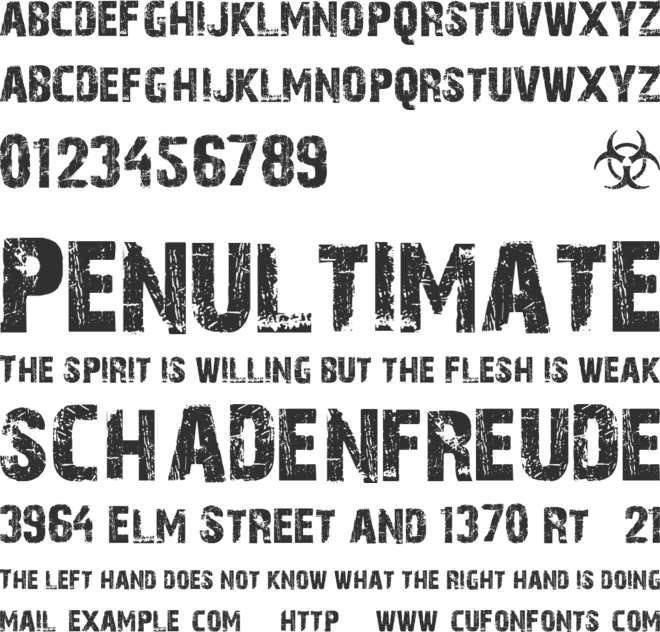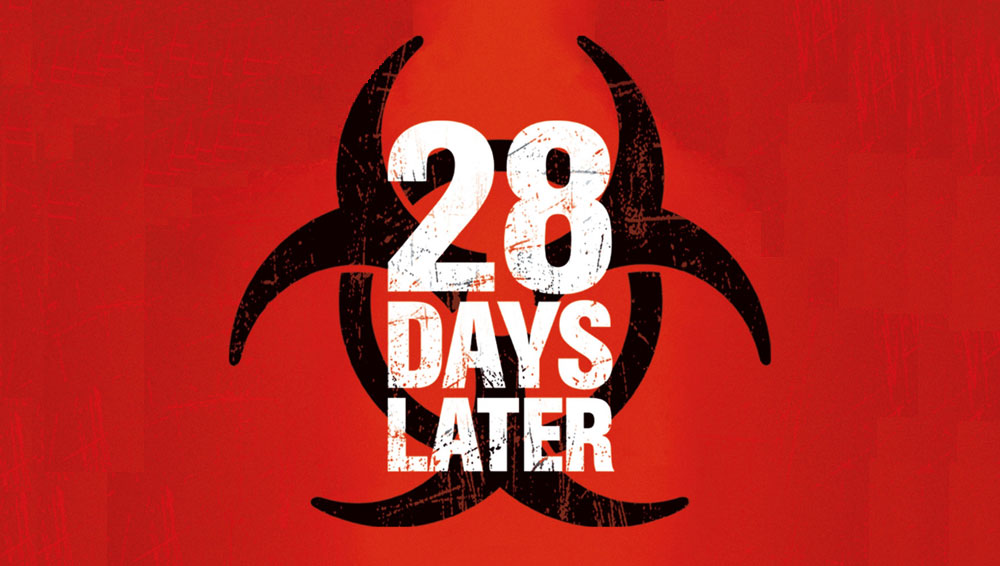
28 Days Later Font
28 Days Later Font - Web download the font of the horror film 28 days later, a zombie apocalypse thriller based on the novel by alex garland.
Web download the font of the horror film 28 days later, a zombie apocalypse thriller based on the novel by alex garland.